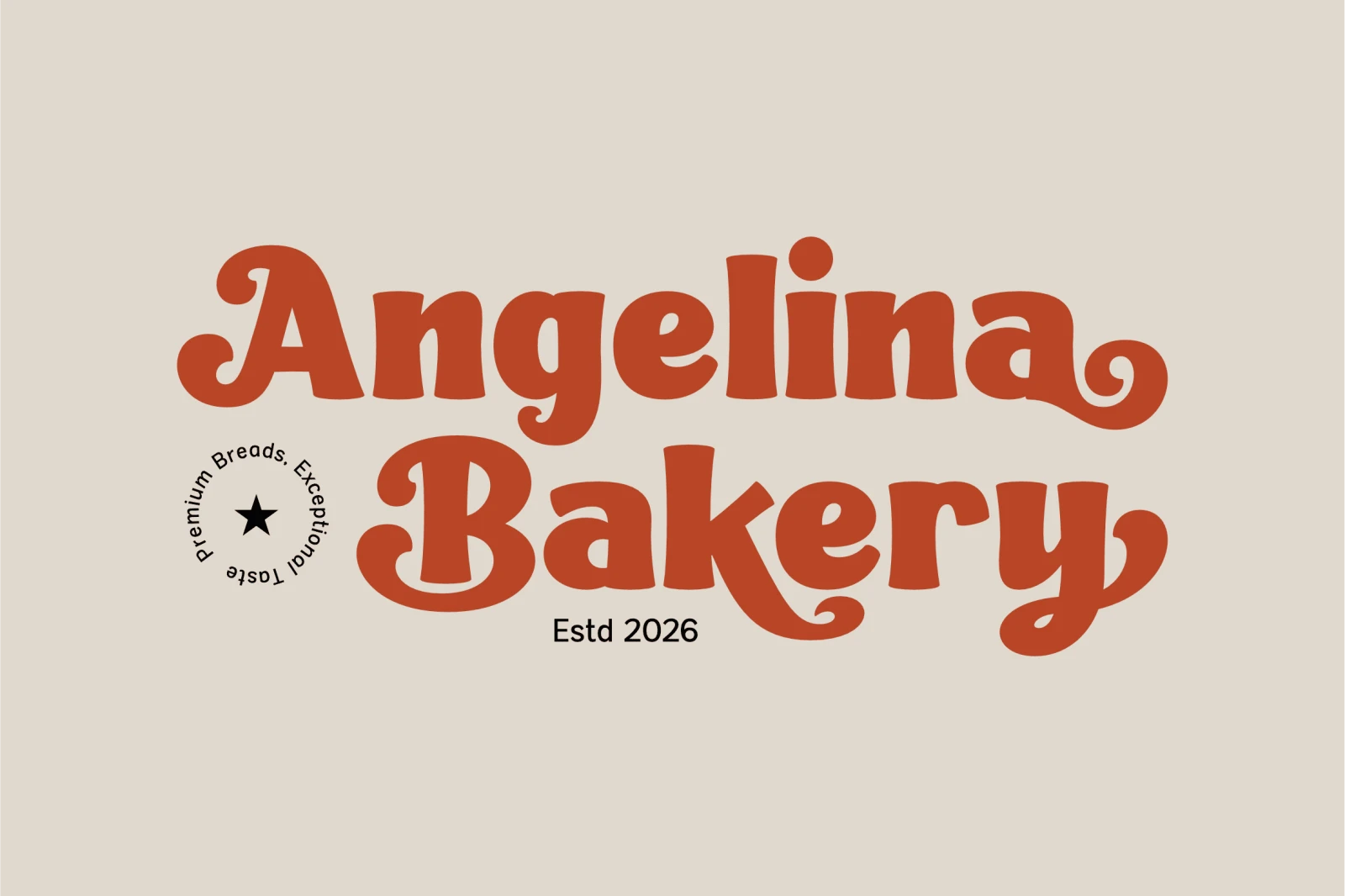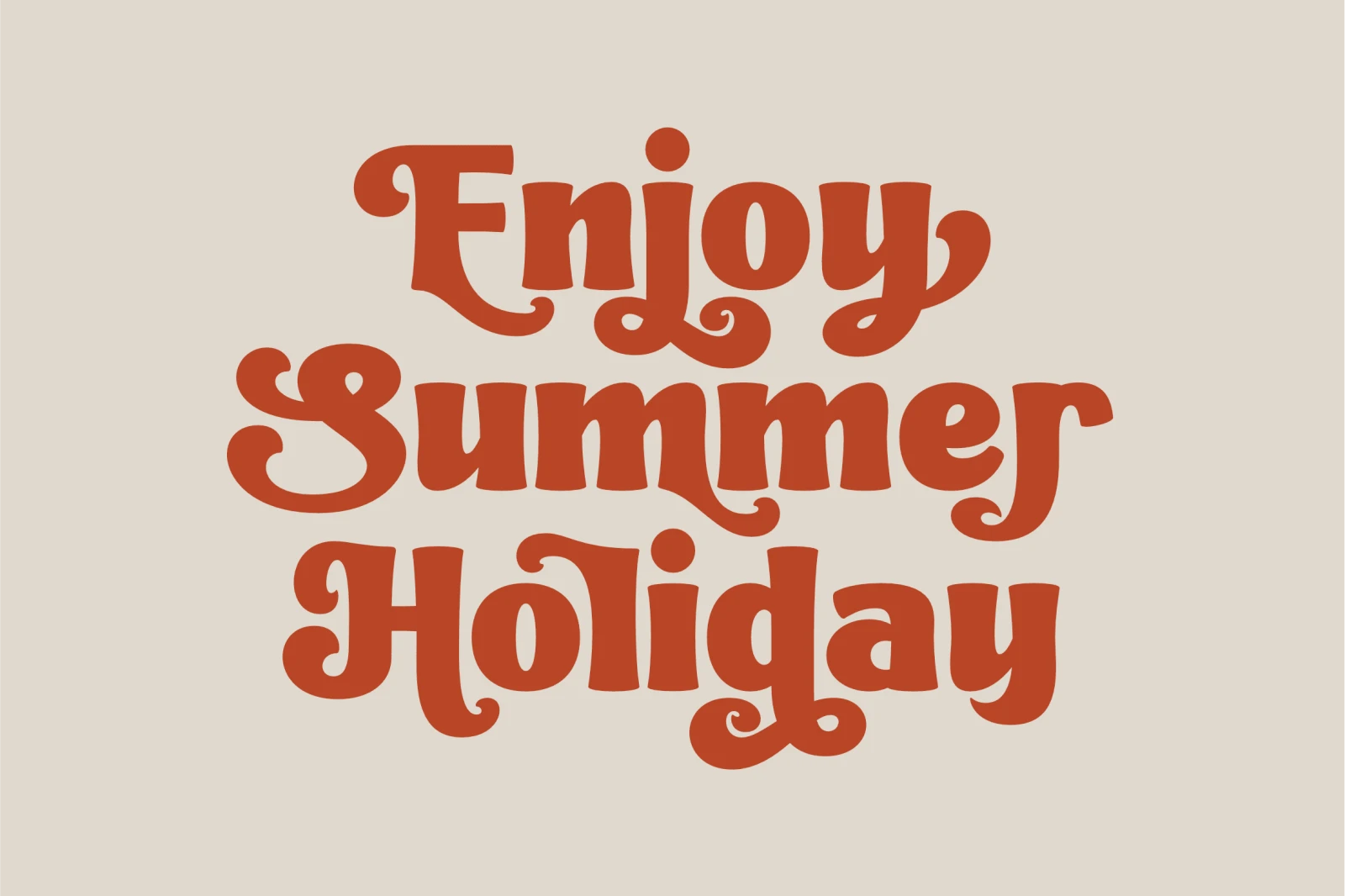
Bluby Font
Bluby Font is a bold retro serif font inspired by vintage signage, groovy aesthetics, and nostalgic typography from the golden era.
Bluby Font is a bold retro serif font inspired by vintage signage, groovy aesthetics, and nostalgic typography from the golden era. With its chunky letterforms, playful curves, and eye-catching style, Bluby brings warmth, personality, and timeless charm to any creative project.
Bluby comes with carefully crafted characters that make your typography stand out, whether you want to create authentic vintage vibes or modern retro designs.